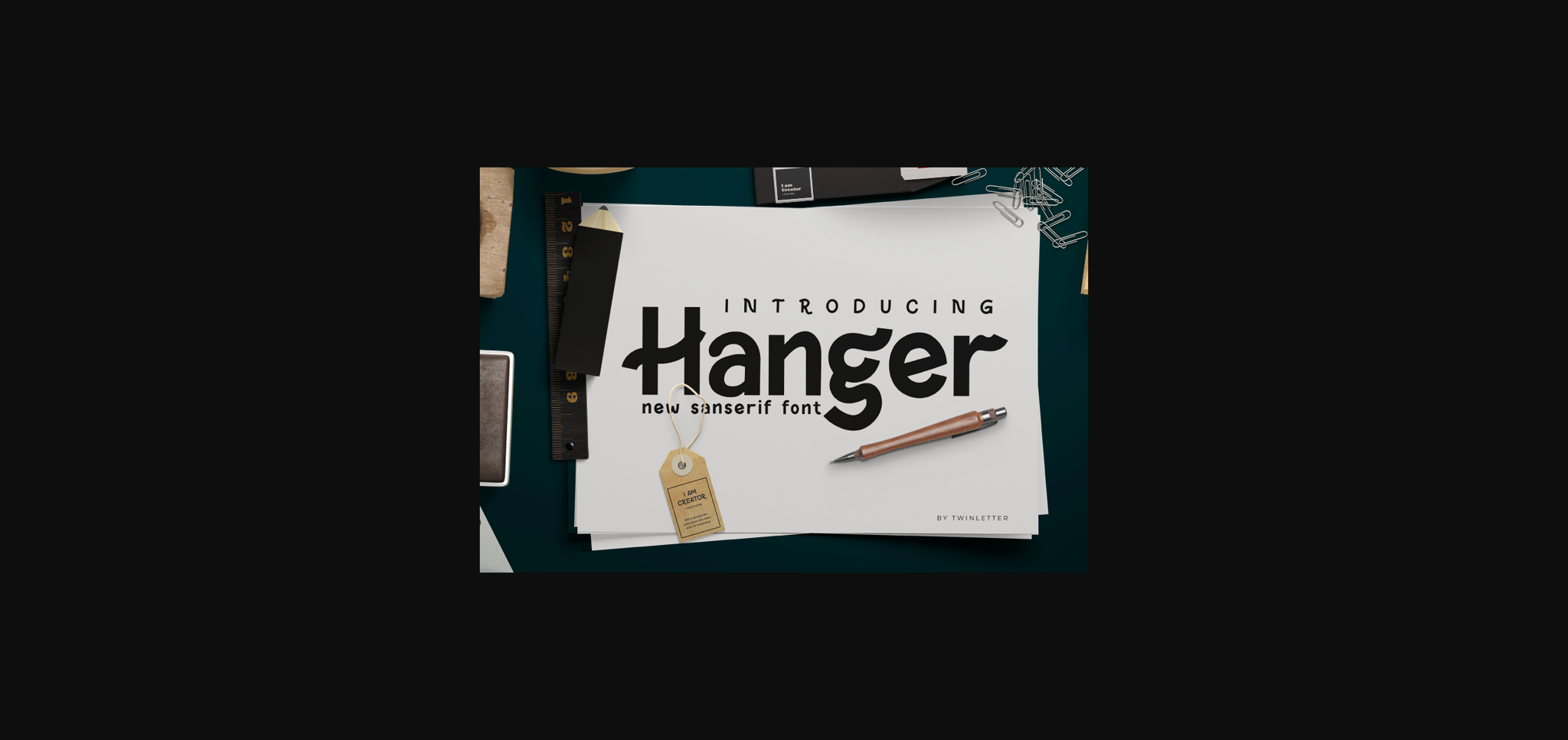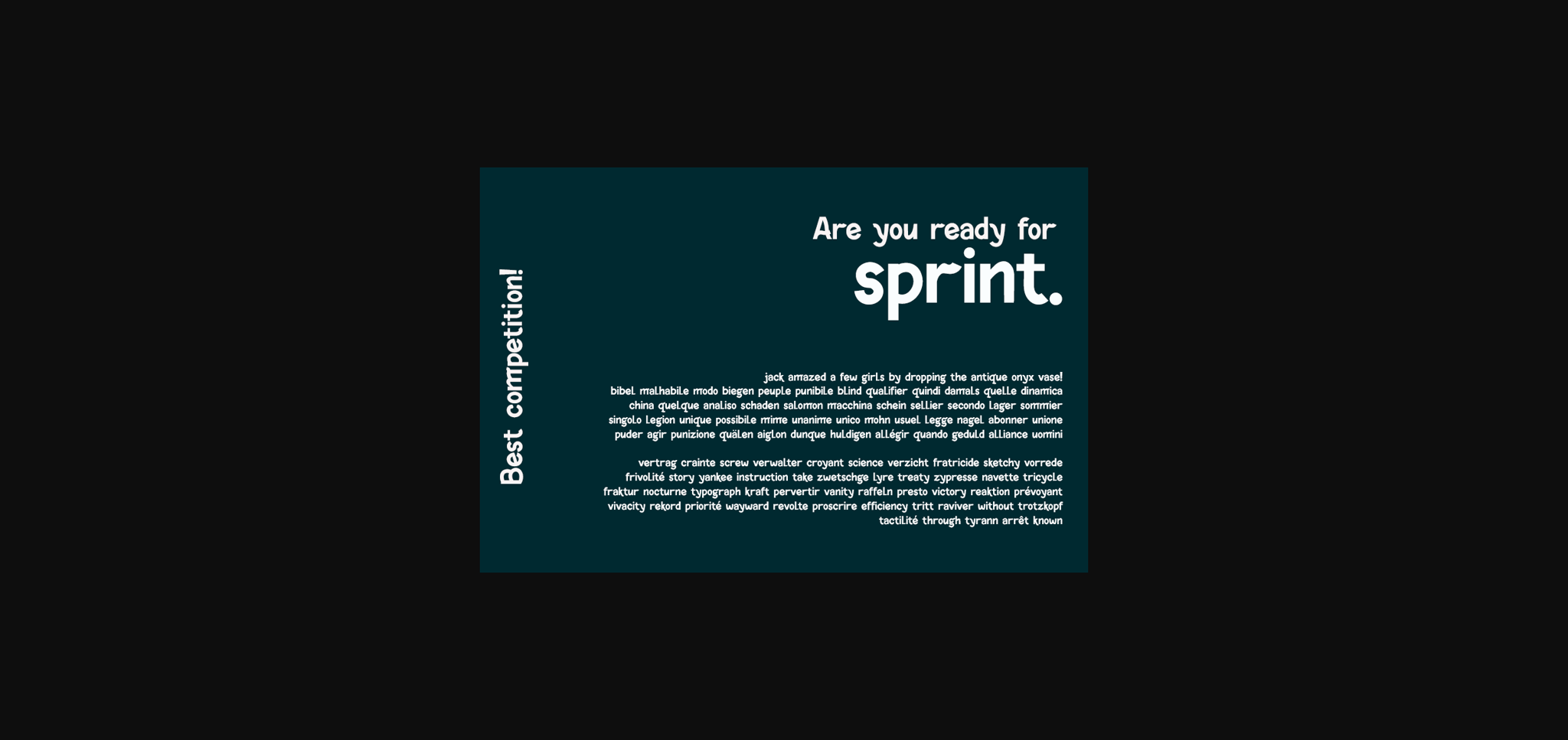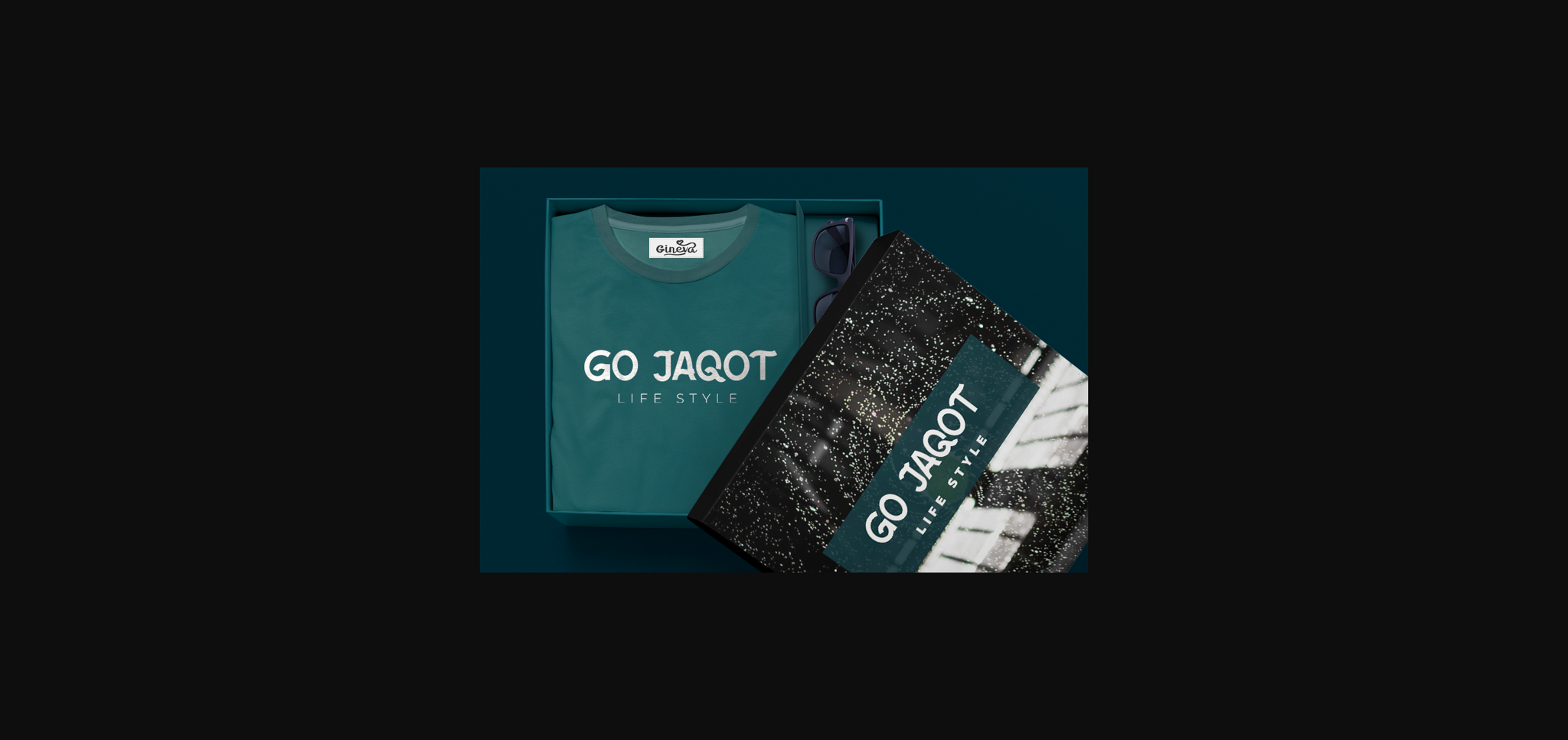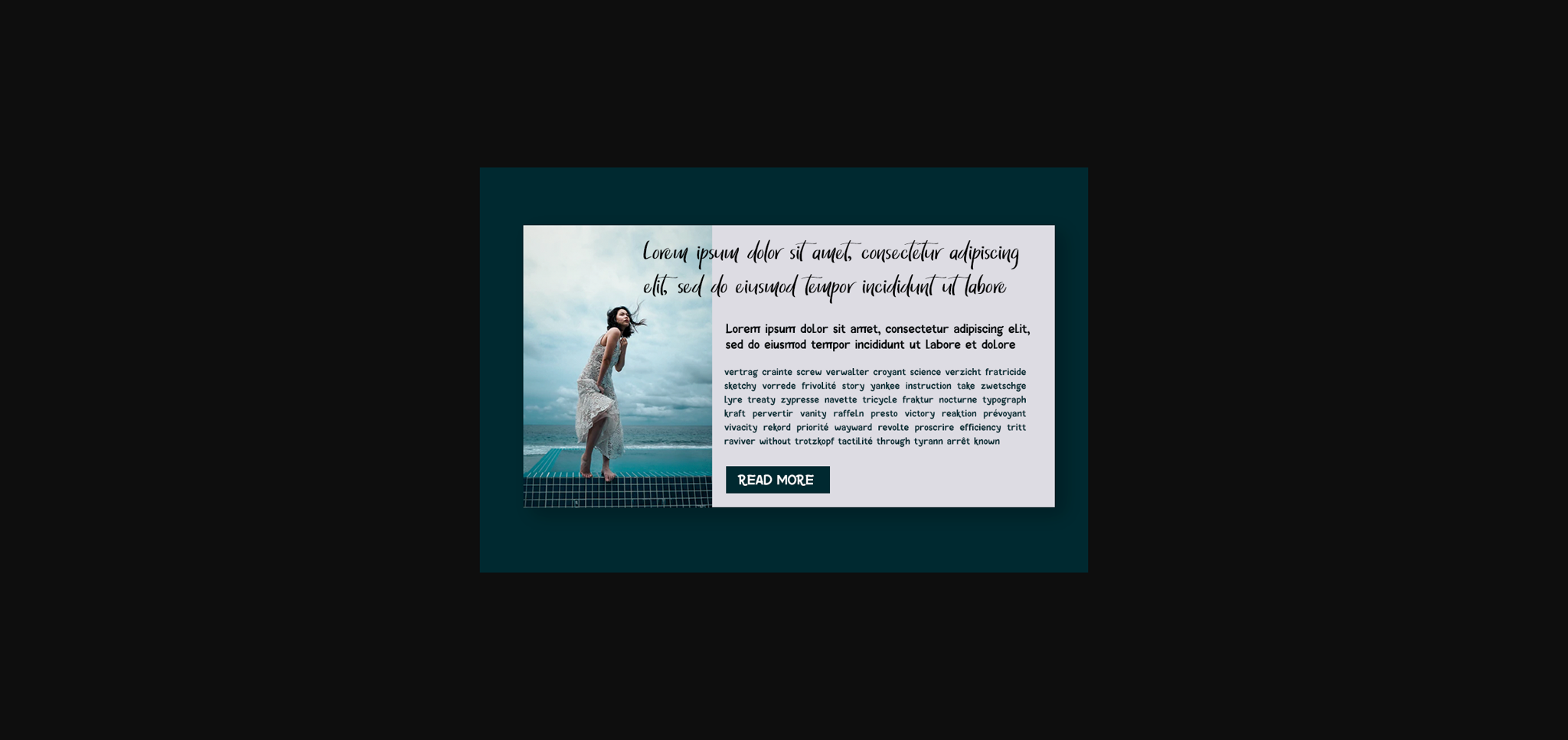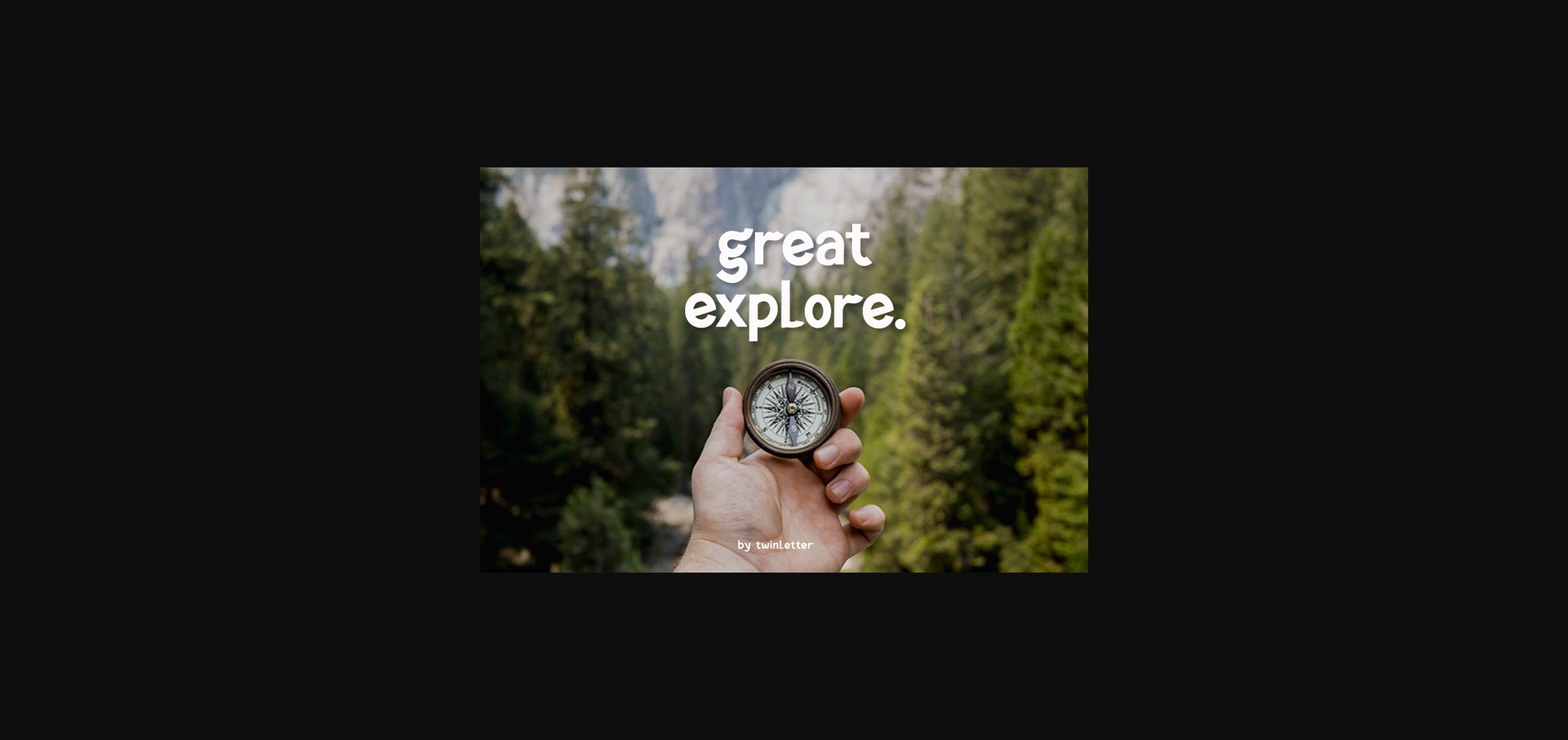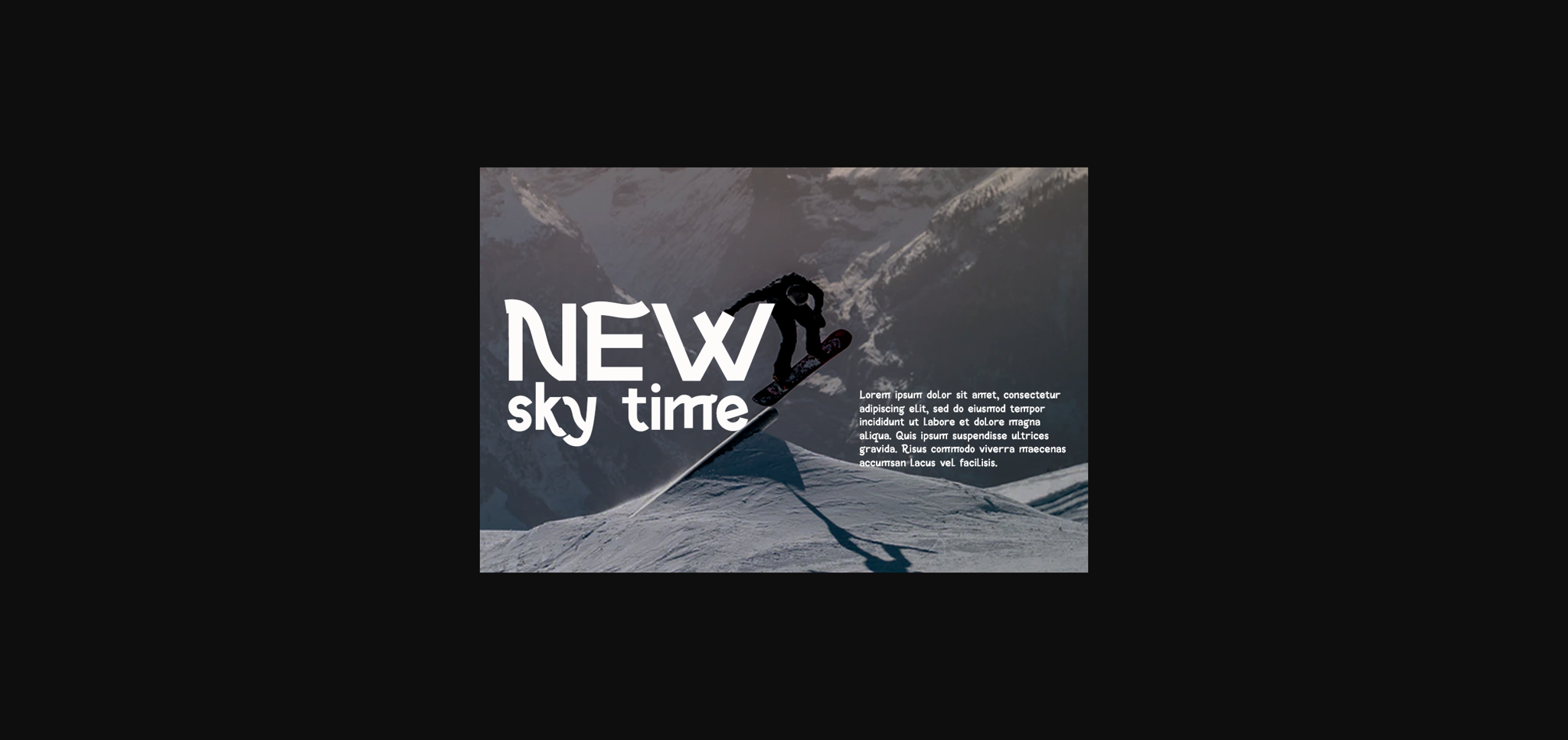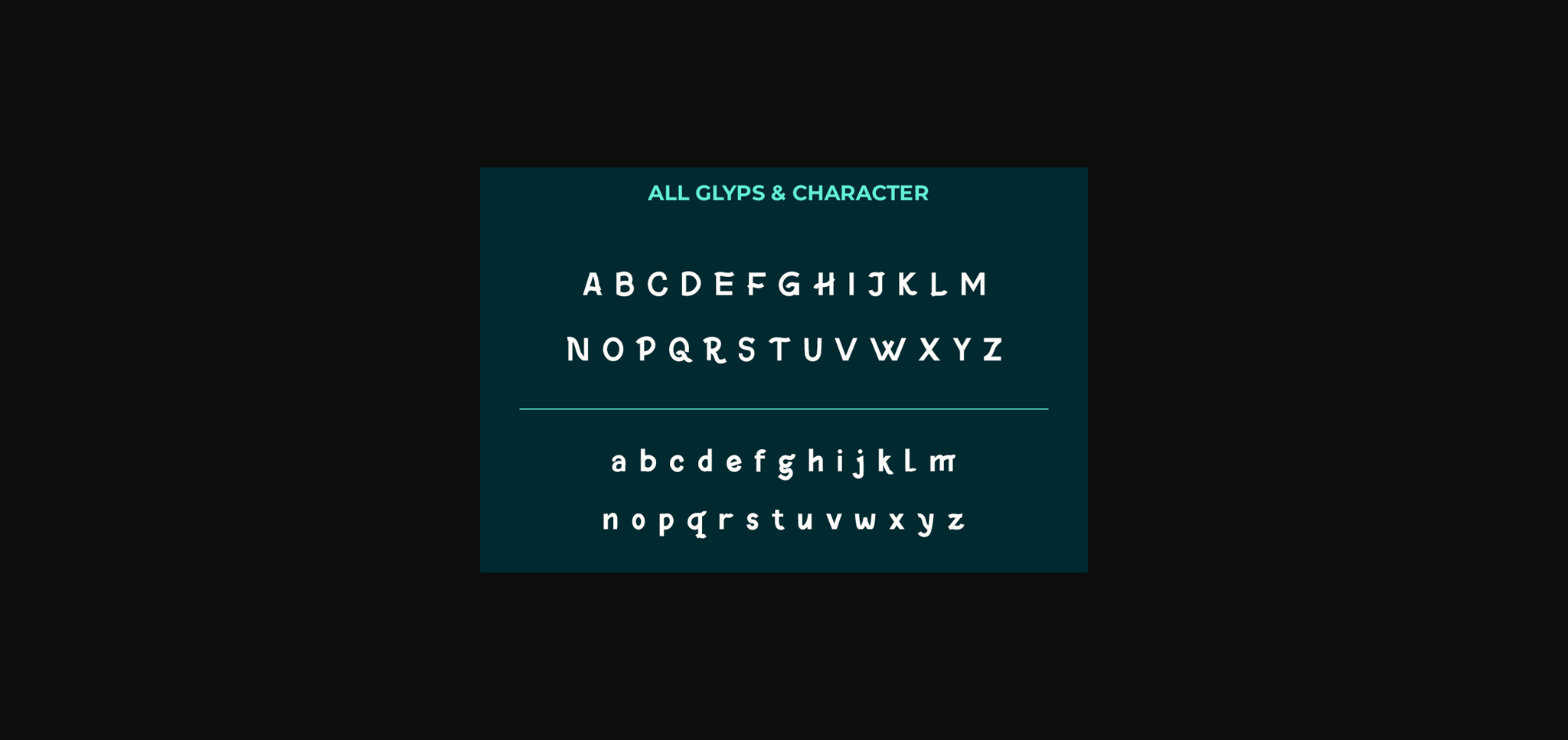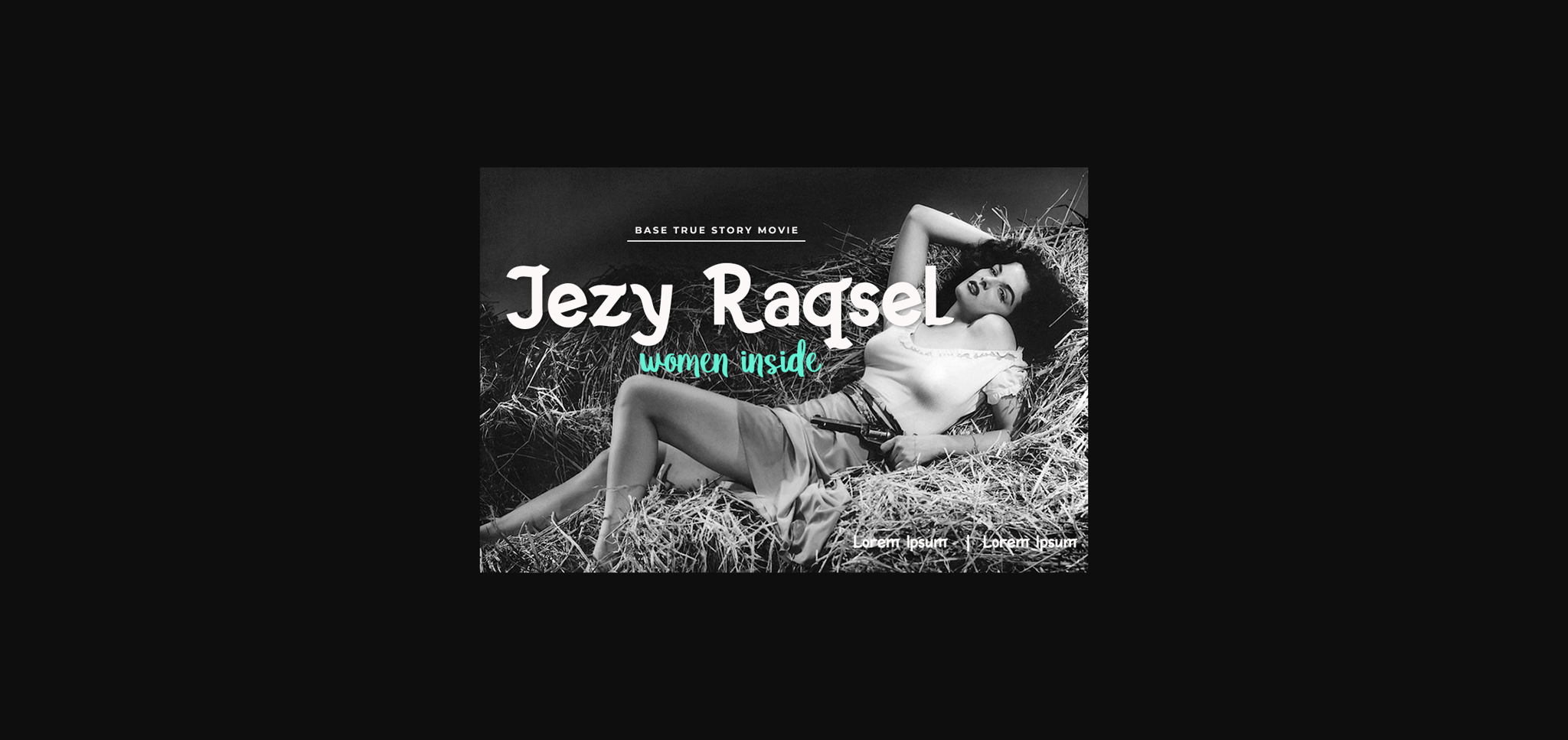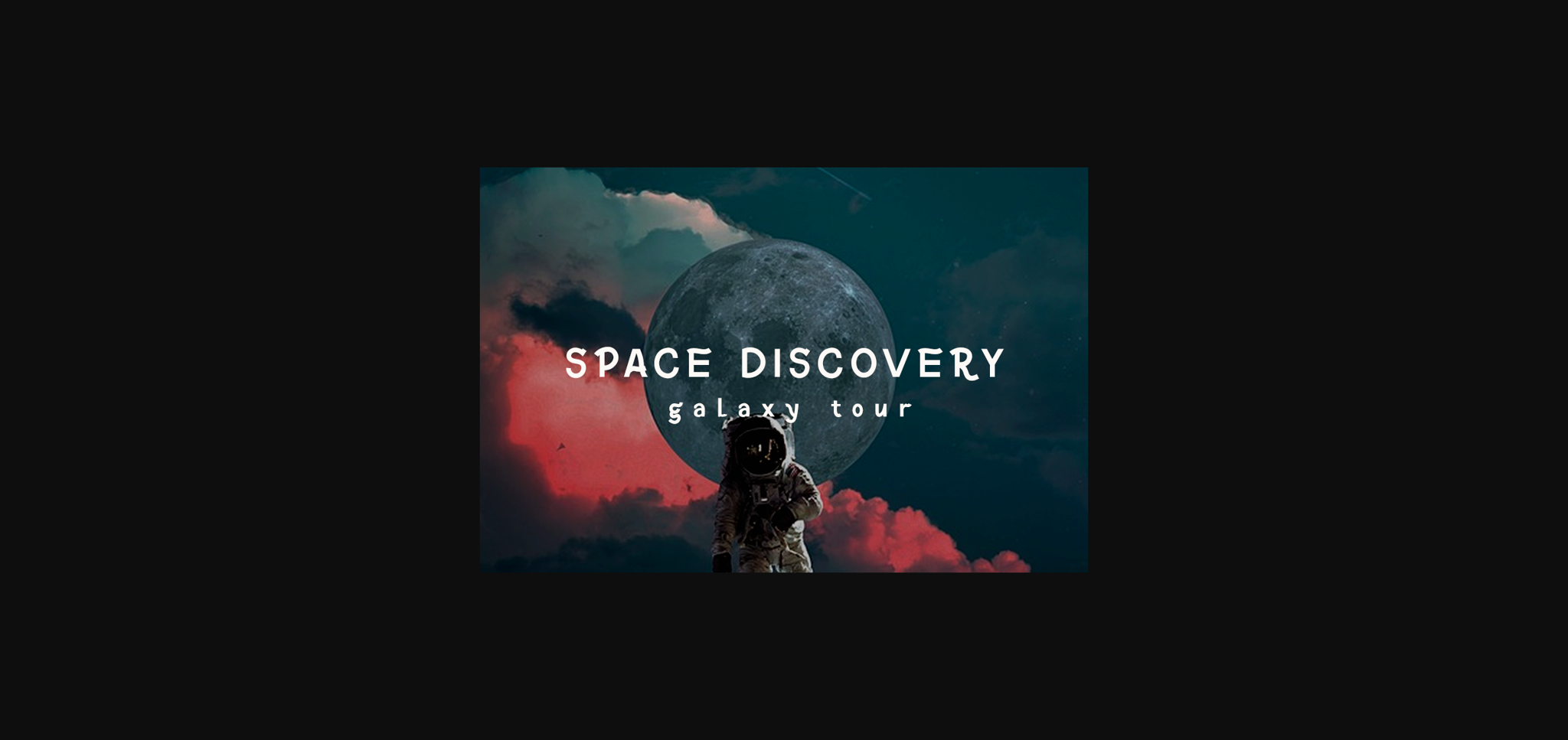
Hanger Font
About Hanger Font
Hanger is a bold, versatile sans serif font. It will elevate a wide range of design projects to the highest level, be it branding, headings, wedding designs, invitations, signatures, logos, labels, and much more! Hanger will complement any design need perfectly with its balanced mix of smooth and sharp style!